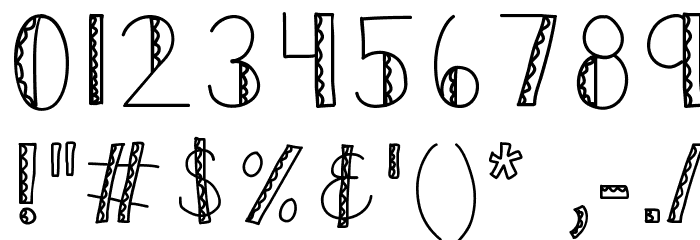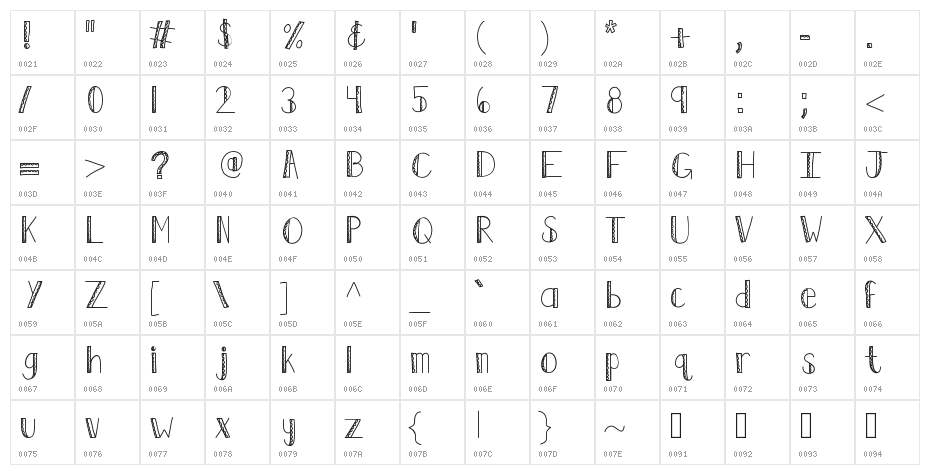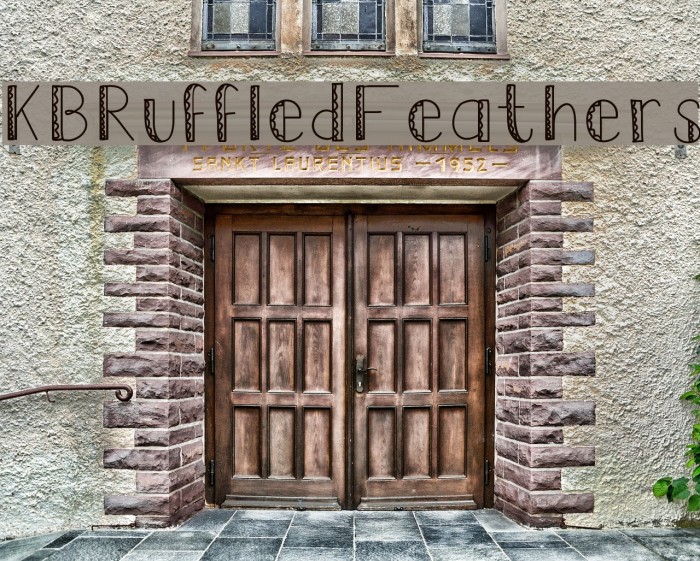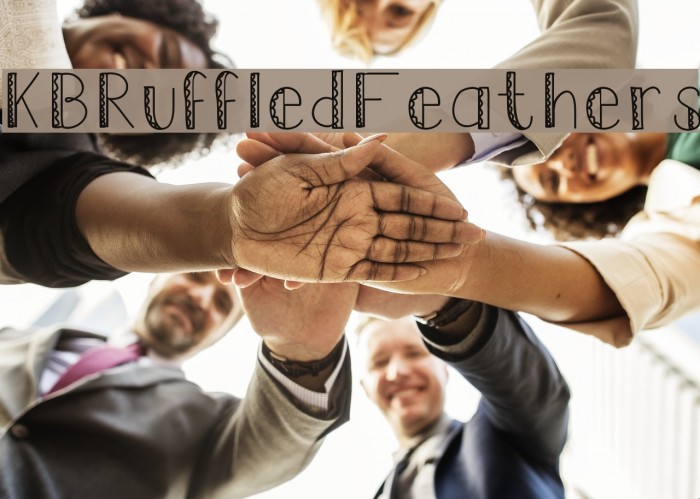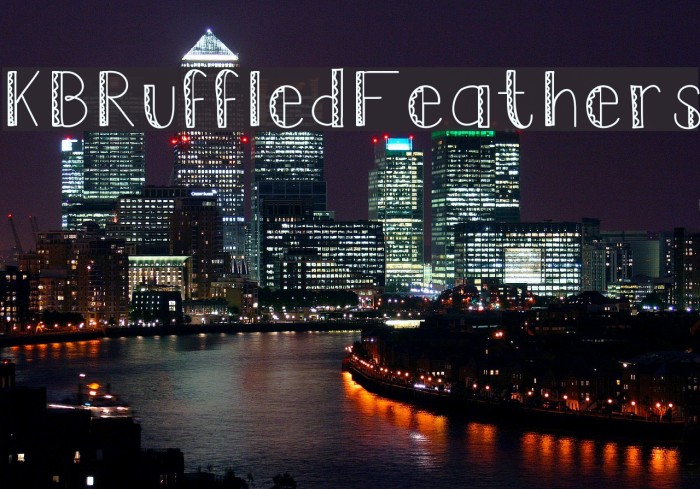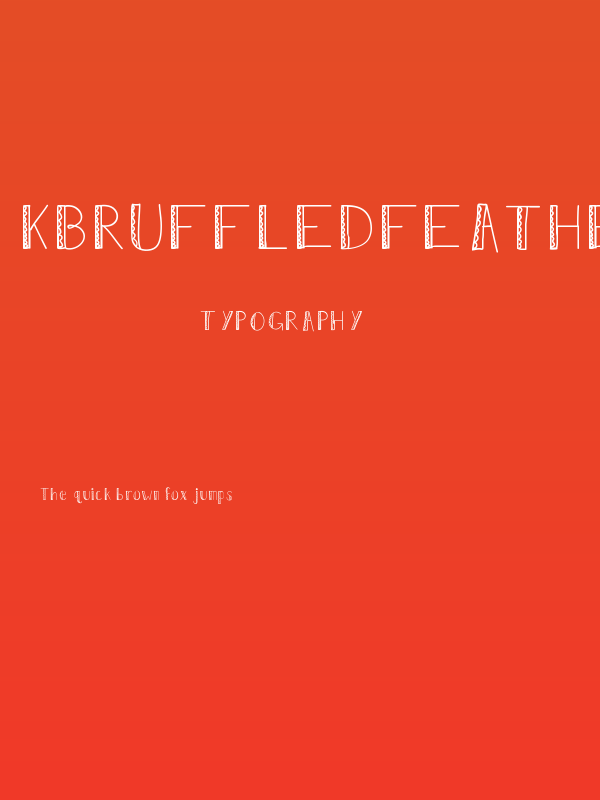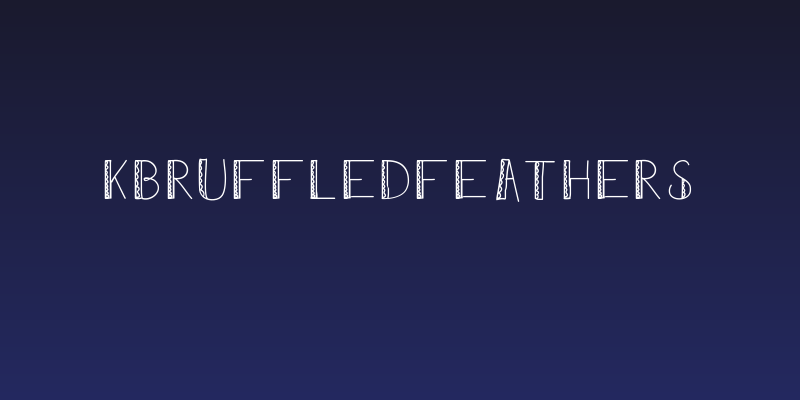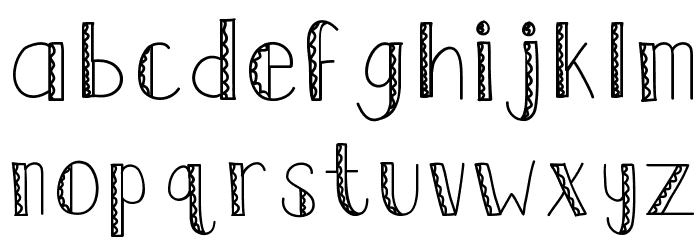
KBRuffledFeathers Font
KBRuffledFeathers Description
This whimsical and playful font features a unique decorative style with intricate patterns within each character. The uppercase and lowercase letters are designed with a hand-drawn aesthetic, giving them a charming and artistic flair. The numbers and special characters maintain this consistent style, making the font suitable for creative projects. The strokes are moderately thick, with a medium contrast that adds to the font's visual interest. The overall design is both fun and engaging, perfect for adding a touch of personality to any text.
| Proposed Projects | Ideal for children's books, greeting cards, playful branding, and creative posters. |